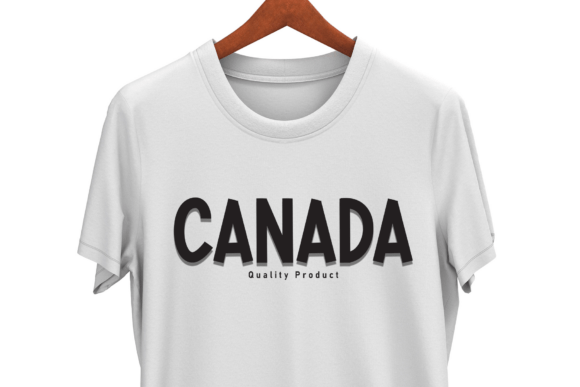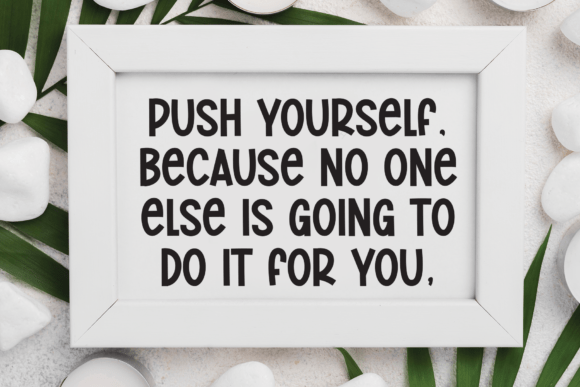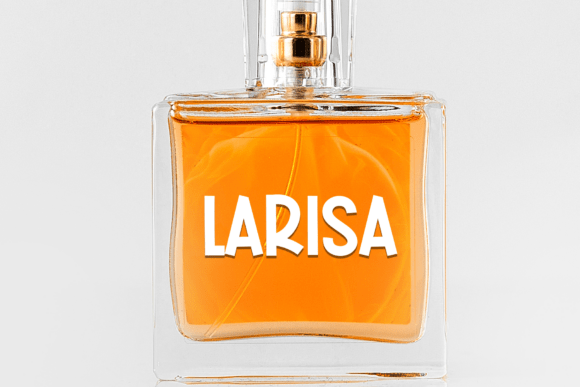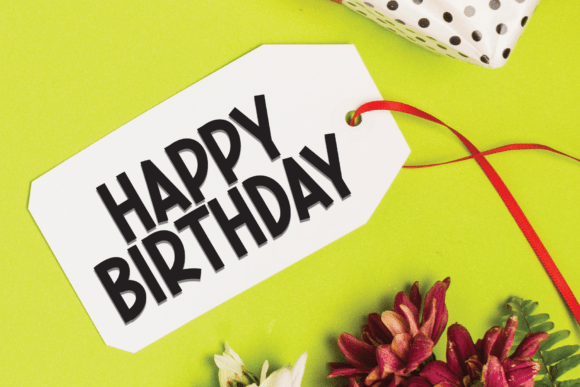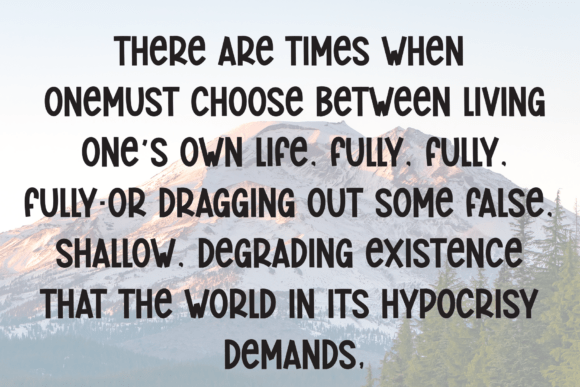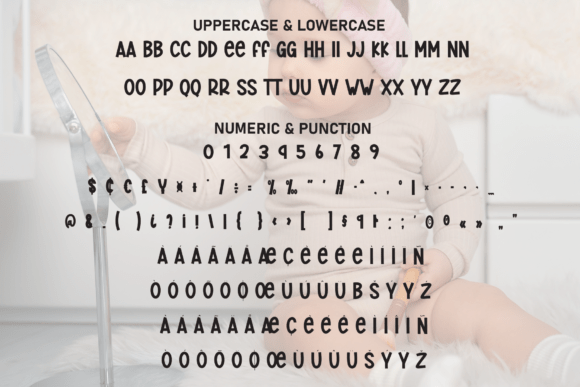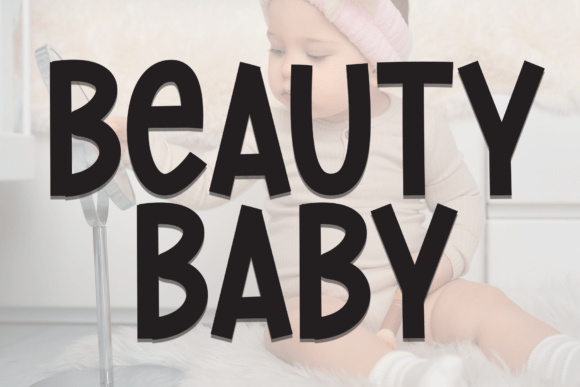
Introducing Beauty Baby Font: The Ultimate Display Font for Whimsical Designs
Are you on the hunt for a font that exudes sweetness, friendliness, and a dash of playfulness? Look no further than the Beauty Baby Font! This delightful handwritten display font is the perfect addition to your design toolkit, offering an effortless charm that will elevate your creations to new heights. In this article, we’ll dive into the world of Beauty Baby Font, exploring its features, uses, and the creative possibilities it offers for designers and crafters alike.
The Essence of Beauty Baby Font
Beauty Baby Font is a handwritten display font that radiates warmth and approachability. Its cute and playful allure makes it an ideal companion for crafting designs that require a touch of whimsy. Whether you’re working on wedding invitations, greeting cards, or any other project that demands a personal and friendly feel, this font is sure to impress. With its elegant yet informal style, Beauty Baby Font strikes the perfect balance between sophistication and playfulness.
Design Possibilities with Beauty Baby Font
The versatility of Beauty Baby Font is one of its most significant advantages. This enchanting display font can be used in a wide range of design applications, including:
- Wedding Invitations: Add a touch of romance and whimsy to your wedding invitations, save-the-date cards, and other wedding-related designs.
- Greeting Cards: Create personalized and heartfelt greeting cards for special occasions, such as birthdays, anniversaries, and holidays.
- DIY Crafts: Use Beauty Baby Font to add a personal touch to your DIY crafts, such as handmade gift tags, banners, and signs.
- Digital Designs: Incorporate this charming font into your digital designs, including social media graphics, blog posts, and website headers.
Why Choose Beauty Baby Font?
With so many fonts available, why should you choose Beauty Baby Font for your design needs? Here are just a few compelling reasons:
- Unique and Eye-Catching: Beauty Baby Font offers a distinctive and captivating style that will set your designs apart from the rest.
- Easy to Read: Despite its playful nature, this font remains highly legible, ensuring that your message is conveyed clearly and effectively.
- Highly Versatile: Beauty Baby Font can be used in a variety of design applications, making it a valuable addition to your font collection.
- Time-Saving: With Beauty Baby Font, you can create stunning designs in no time, thanks to its effortless charm and stylish appearance.
Tips for Using Beauty Baby Font
To get the most out of Beauty Baby Font, here are some expert tips to keep in mind:
- Pair with Complementary Fonts: Combine Beauty Baby Font with complementary fonts to create visually appealing and harmonious designs.
- Experiment with Colors: Play around with different color schemes to find the perfect match for your design and the Beauty Baby Font.
- Don’t Overdo It: Use Beauty Baby Font sparingly to avoid overwhelming your design. This font is best used as an accent or headline font.
In conclusion, Beauty Baby Font is a delightful handwritten display font that offers an effortless charm and a playful allure. With its versatility, ease of use, and unique style, this font is perfect for designers and crafters looking to add a touch of whimsy to their creations. Whether you’re working on wedding invitations, greeting cards, or digital designs, Beauty Baby Font is sure to impress. So why wait? Explore the fun side of creativity with this enchanting display font and take your designs to new heights!